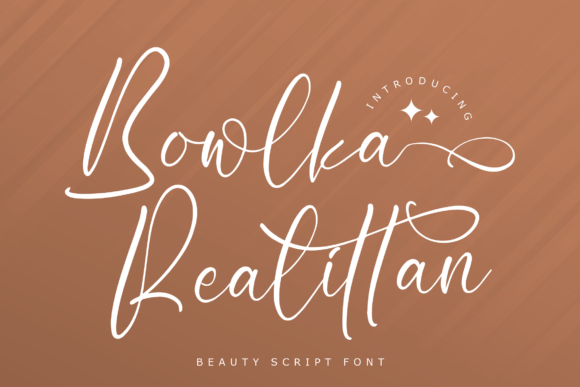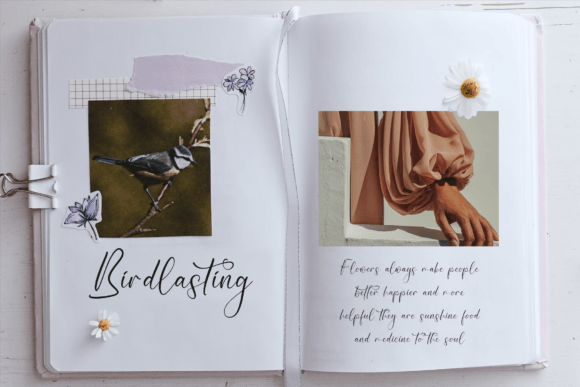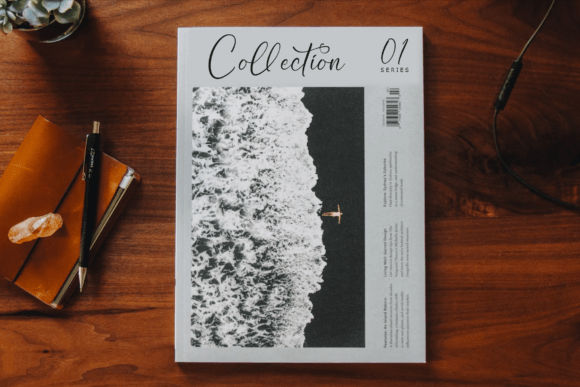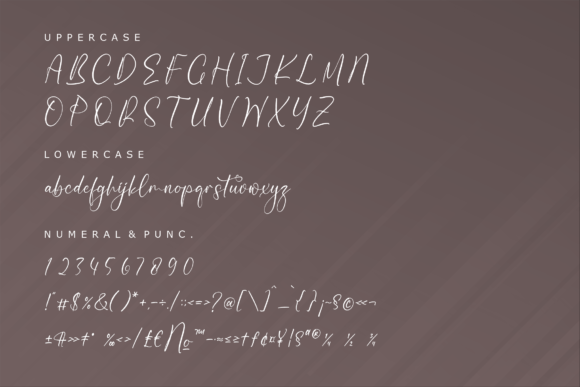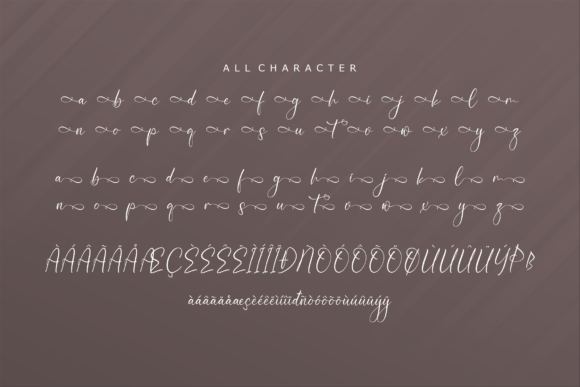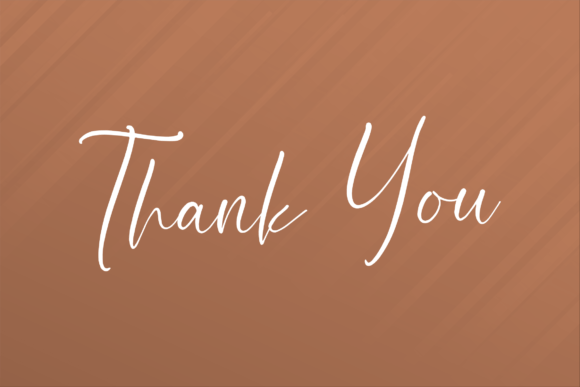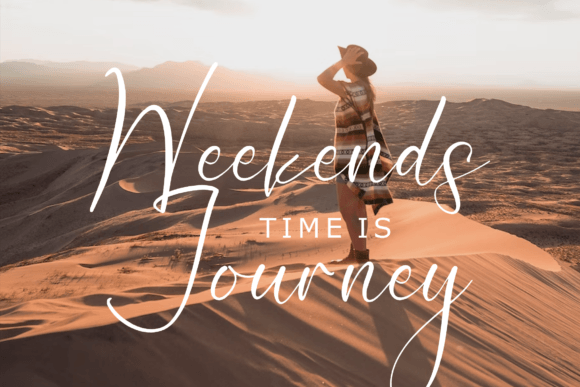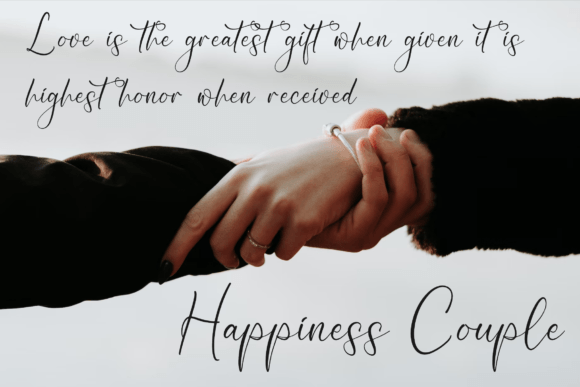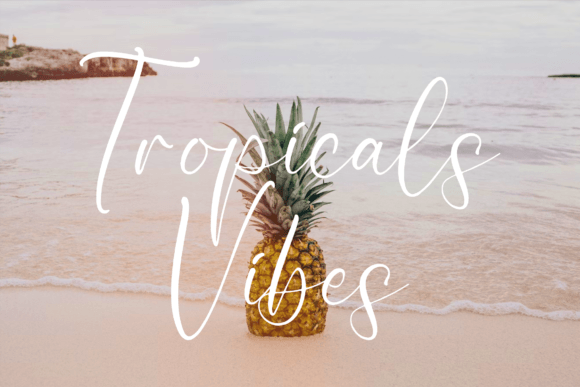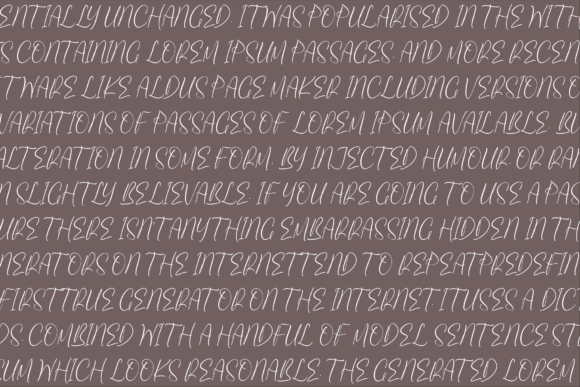
Bowlka Realittan Font
Bowlka Realittan Font – A Beautiful Script for Elegant Designs
Bowlka Realittan Font is an elegant, beauty-inspired script font designed to elevate your creative projects with grace and style. Whether you’re designing a logo or crafting a wedding invitation, this handwritten typeface adds a refined and personal touch to your work.
Ideal for Every Creative Need
Bowlka Realittan is extremely versatile. Its flowing, script-style characters bring sophistication and warmth to various applications. This font is ideal for:
• Logos and Branding Projects: Establish a graceful and stylish identity
• Homeware Designs: Add handwritten charm to prints or labels
• Product Packaging: Ideal for cosmetics, artisan goods, or boutique items
• Stationery: Perfect for wedding invitations, greeting cards, and thank-you notes
• Apparel and Merchandise: Use it on t-shirts, tote bags, and shopping bags
• Marketing Materials: Posters, quotes, social media graphics, and more
• Photography and Watermarks: Give your photos a polished signature style
No matter your design goal, Bowlka Realittan brings both professionalism and personality.
Elegant Style Meets Practical Design
Bowlka Realittan strikes a delicate balance between artistic flair and legibility. Its soft curves and stylish strokes create a natural handwritten look, while remaining readable across all formats.
Key features include:
• Beauty script style with smooth, flowing lines
• PUA encoded: Easy access to alternates and special glyphs
• Professional kerning and spacing for polished results
This makes Bowlka Realittan not just beautiful, but also highly functional for both digital and print use.
Stand Out with Stylish Typography
Typography can make or break a design. Fortunately, Bowlka Realittan Font helps you stand out by combining elegance and emotion in every character. Whether you’re promoting a luxury product, announcing a special event, or branding a personal project, this font creates an immediate impact.
Its flowing script aesthetic naturally attracts attention while conveying creativity and charm—perfect for high-end branding and memorable visuals.
Perfect for Special Occasions
Because of its warm and inviting style, Bowlka Realittan is also a favorite for festive and emotional designs. Consider it for:
• Weddings: Invitations, signage, seating cards
• Holidays: Gift tags, greeting cards, packaging
• Special Events: Baby showers, birthdays, anniversaries
When your design needs to feel heartfelt and beautiful, Bowlka Realittan delivers.
In conclusion, Bowlka Realittan Font is a refined, handcrafted script that blends elegance with versatility. It’s suitable for nearly any project that calls for a personal, stylish, and expressive touch. Add it to your creative toolkit and bring beauty to your next design with this timeless typeface.